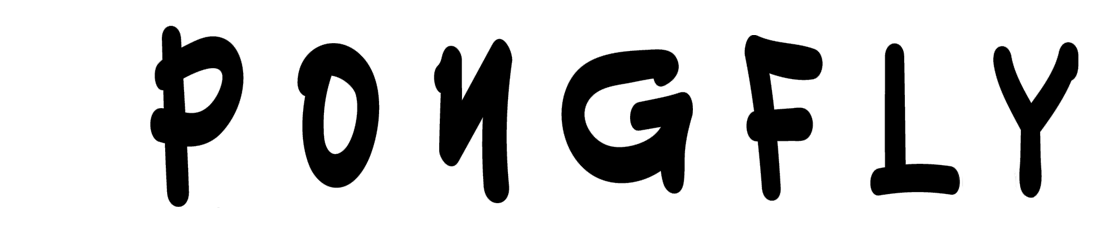
I made letters quite separated and tried it with Fontsquirrel Matcherator, and also with MyFonts auto identifier, but found no font close enough.
I guess this is hard to identify by robots / automatic systems as it is hand written!